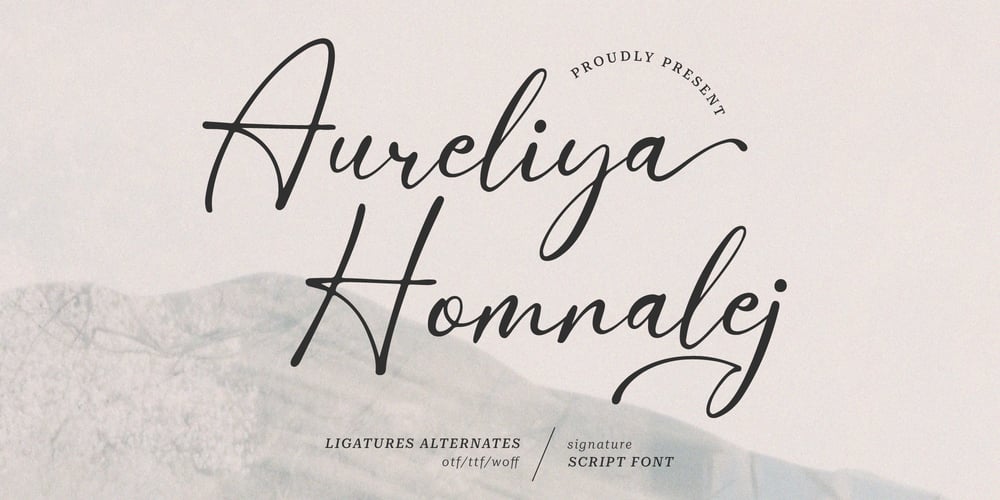
Aureliya Homnalej Font Family was designed by Dede Nugraha and published by Denustudio. Aureliya Homnalej contains 2 styles and family package options. Aureliya Homnalej | Elegant Script, from Denustudios, suitable for any projects such as: logos, branding projects, homeware designs, product packaging, mugs, quotes, posters, shopping bags, t-shirts, book covers, name card, invitation cards, greeting cards, label, photography, watermark, special events, and all your other lovely projects that need a beautiful chic script taste. ===============================================================What’s Included : Regulae and Italic Font Web Font Standard glyphs Alternate and Ligature Works on PC & Mac Simple installations Accessible in the Adobe Illustrator, Adobe Photoshop, Adobe InDesign, even work on Microsoft Word and Other Software. PUA Encoded Characters – Fully accessible without additional design software. Fonts include multilingual support